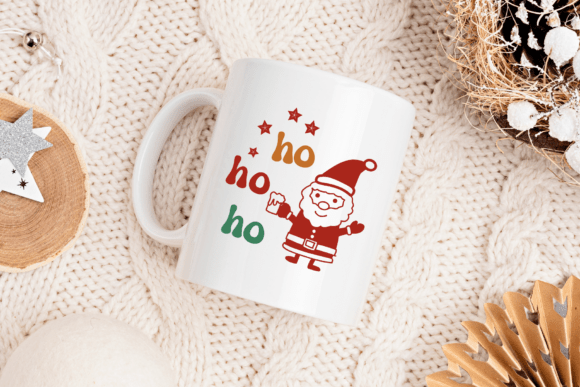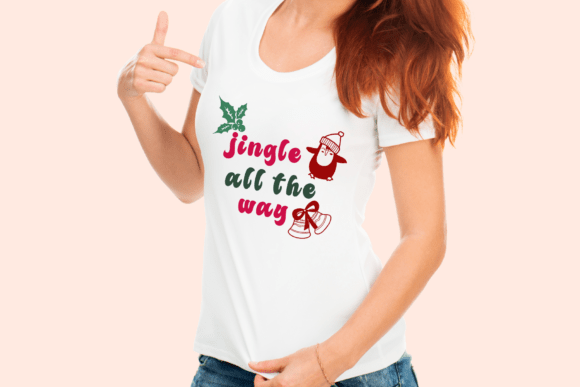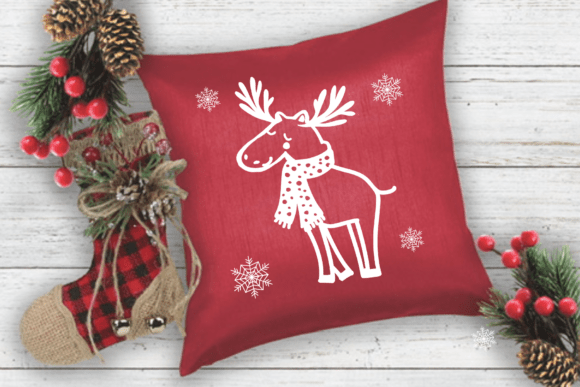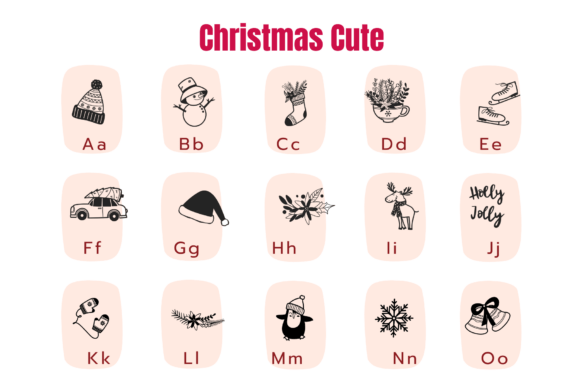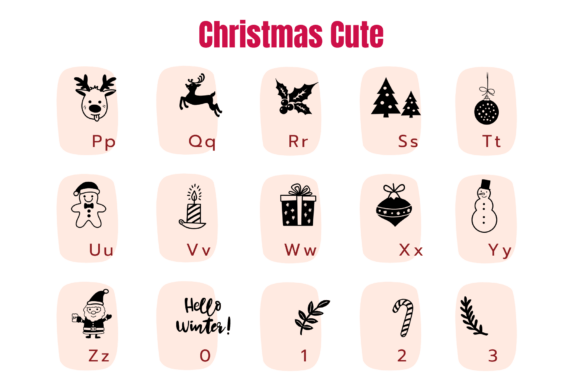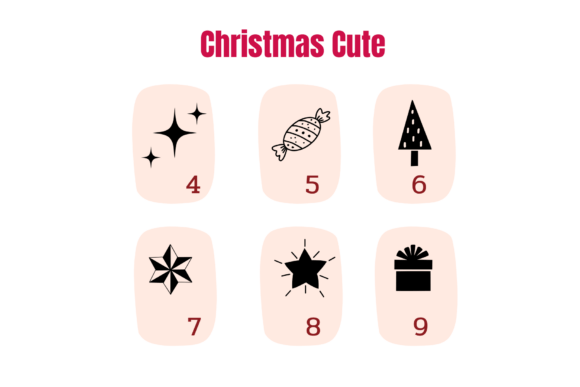
Christmas Cute Font: Add a Touch of Holiday Cheer to Your Designs
Are you looking for a festive and playful font to add some holiday magic to your Christmas designs? Look no further than the Christmas Cute Doodle Font! This charming typeface is inspired by holiday doodles and is perfect for creating joyful and eye-catching Christmas cards, invitations, crafts, posters, gift tags, and seasonal projects.
What is Christmas Cute Doodle Font?
Christmas Cute Doodle Font is a decorative typeface that features a playful and hand-drawn style, reminiscent of traditional holiday doodles. Its unique and whimsical design makes it an ideal choice for adding a touch of festive fun to your holiday designs. With its cute and cheerful vibe, this font is sure to bring a smile to anyone’s face.
Perfect for Holiday Designs
Whether you’re a designer, crafter, or DIY enthusiast, Christmas Cute Doodle Font is the perfect addition to your holiday design toolkit. This versatile font can be used for a wide range of projects, including:
- Christmas cards and invitations: Add a personal touch to your holiday greetings with this charming font.
- Crafts: Use Christmas Cute Doodle Font to add a festive touch to your holiday crafts, such as paper snowflakes, gift tags, and decorations.
- Posters and flyers: Create eye-catching holiday posters and flyers with this playful font.
- Gift tags and wrapping paper: Add a touch of holiday cheer to your gifts with Christmas Cute Doodle Font.
- Seasonal projects: Use this font to add a festive touch to your holiday-themed projects, such as party decorations, garlands, and more.
Why Choose Christmas Cute Doodle Font?
So why choose Christmas Cute Doodle Font for your holiday designs? Here are just a few reasons:
- Unique and playful design: This font features a one-of-a-kind design that’s sure to stand out from the crowd.
- Hand-drawn style: The charming hand-drawn style of Christmas Cute Doodle Font adds a personal touch to your designs.
- Festive and cheerful vibe: This font is guaranteed to bring a smile to anyone’s face with its cute and cheerful vibe.
- Versatile: Christmas Cute Doodle Font can be used for a wide range of holiday projects and designs.
Tips for Using Christmas Cute Doodle Font
Here are a few tips for getting the most out of Christmas Cute Doodle Font:
- Pair with other fonts: Experiment with pairing Christmas Cute Doodle Font with other fonts to create a unique and eye-catching design.
- Use in combination with images: Use Christmas Cute Doodle Font in combination with holiday images, such as snowflakes, trees, and stockings, to create a festive design.
- Add embellishments: Add embellishments, such as glitter or holly, to give your designs an extra touch of holiday magic.
Christmas Cute Doodle Font is a playful and festive decorative typeface that’s perfect for adding a touch of holiday cheer to your designs. With its charming hand-drawn style and versatile design, this font is ideal for a wide range of holiday projects and designs. Whether you’re a designer, crafter, or DIY enthusiast, Christmas Cute Doodle Font is sure to bring joy and cuteness to your holiday designs.